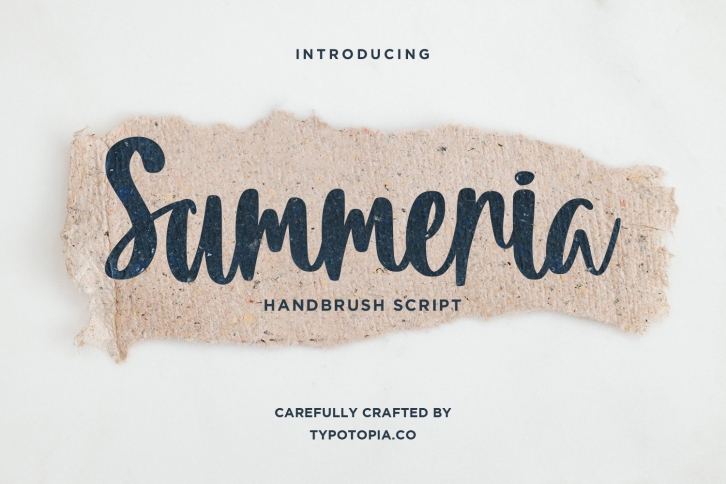
Summeria Handbrush Script s is a great font that was designed by typotopia. Imagine the amount of combinations you can create using this font! The archive is 8.38 MB and it was released on December 5, 2020. Summeria Handbrush Script s looks beautiful on wedding invitations, greeting cards, logos, posters, labels, t-shirt designs, logos, business cards and is perfect for use in ink or watercolor works, fashion, magazines, packaging and food menus, children's books and more!